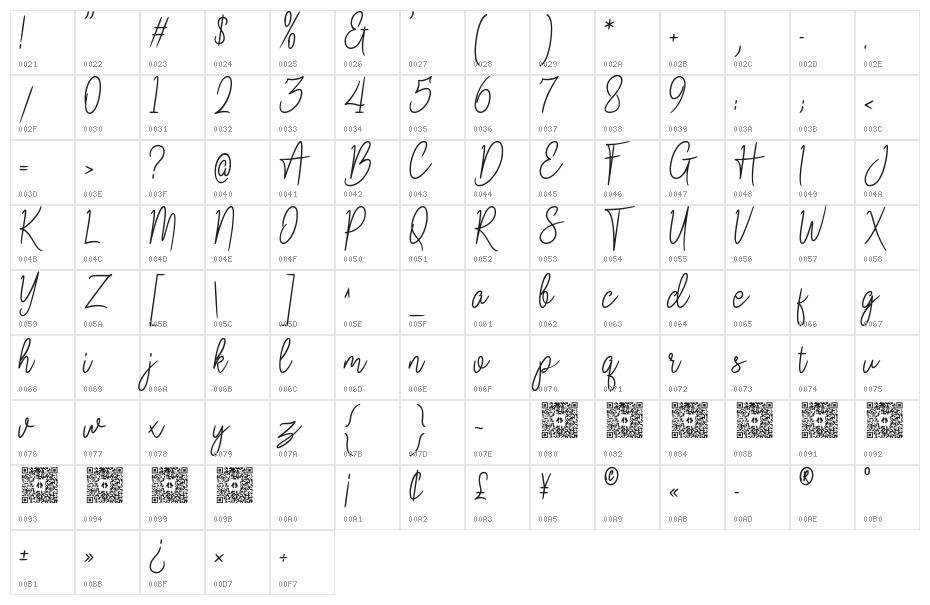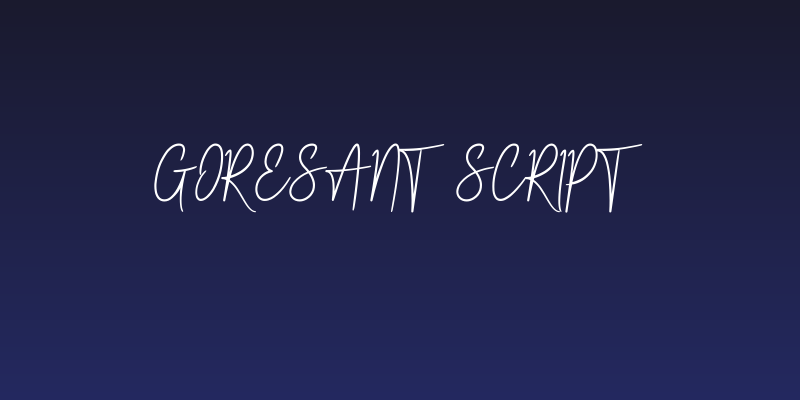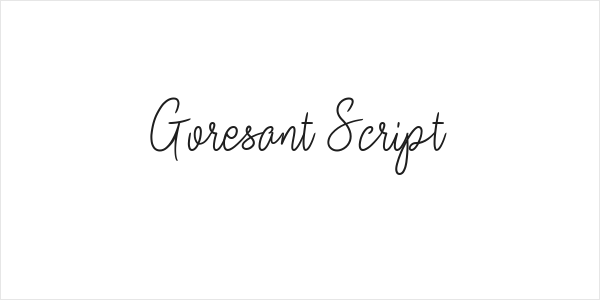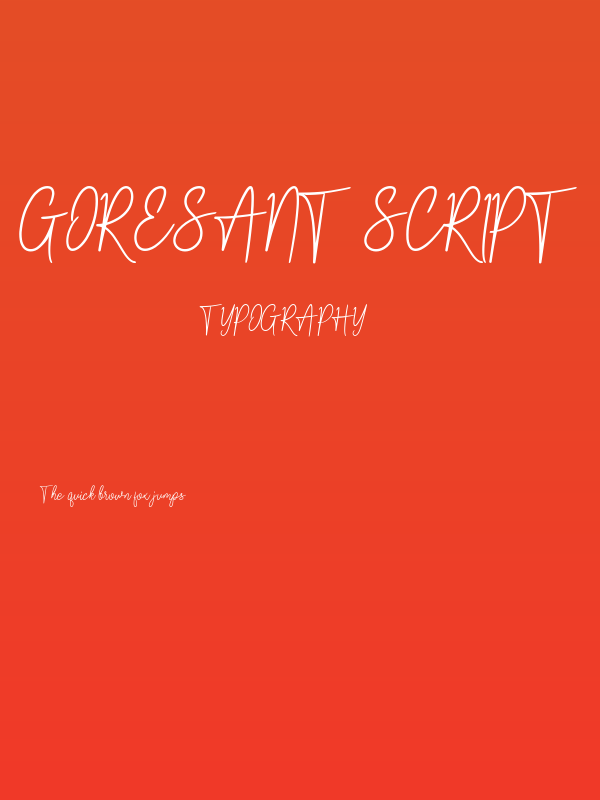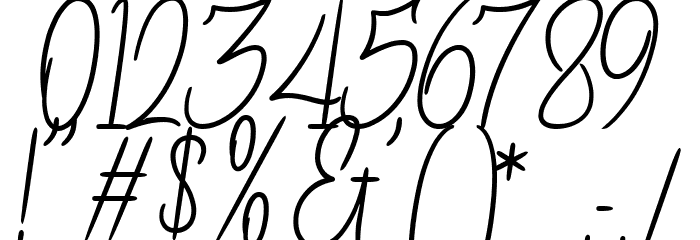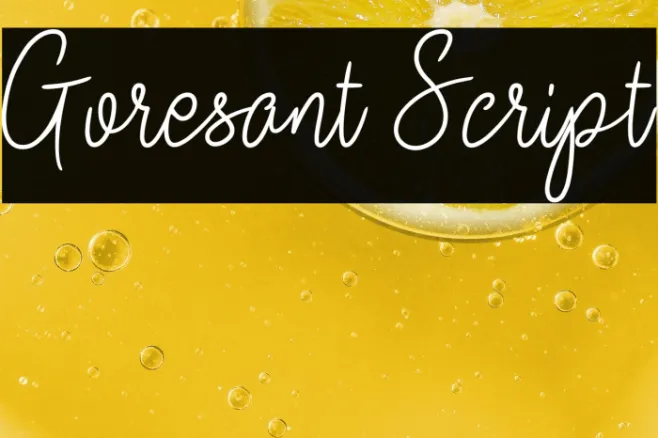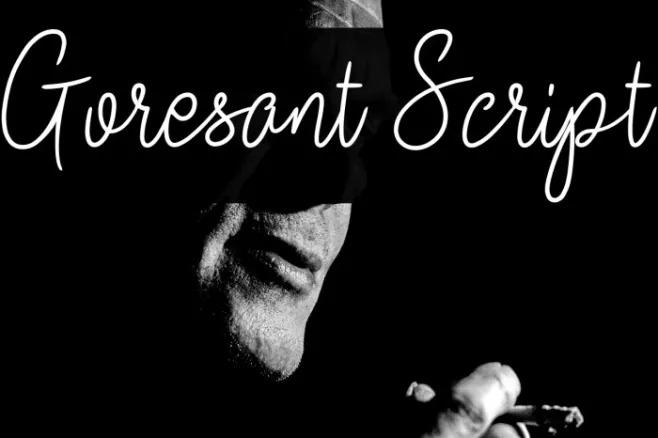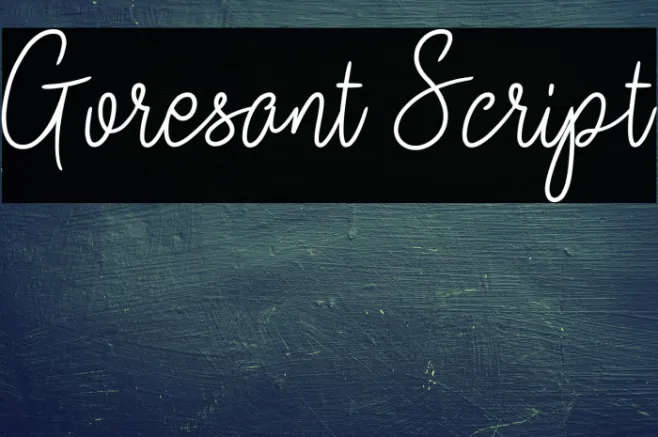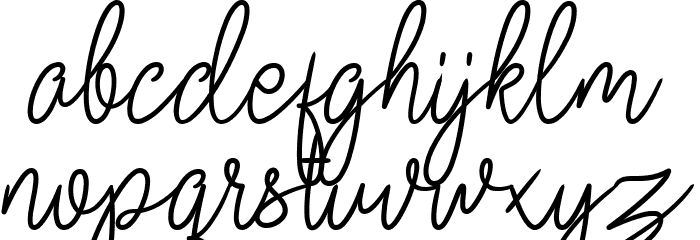
Goresant Script Font
Goresant Script Description
This script font features a flowing, cursive style with elegant loops and swashes. The uppercase letters are tall and slender, with a slight slant that adds a dynamic feel. Lowercase letters are more rounded and connected, enhancing the script's fluidity. The numbers maintain the same graceful style, ensuring consistency across all characters. Special characters are designed to complement the overall aesthetic, making this font suitable for creative and artistic projects. The strokes are smooth and consistent, providing a harmonious appearance.